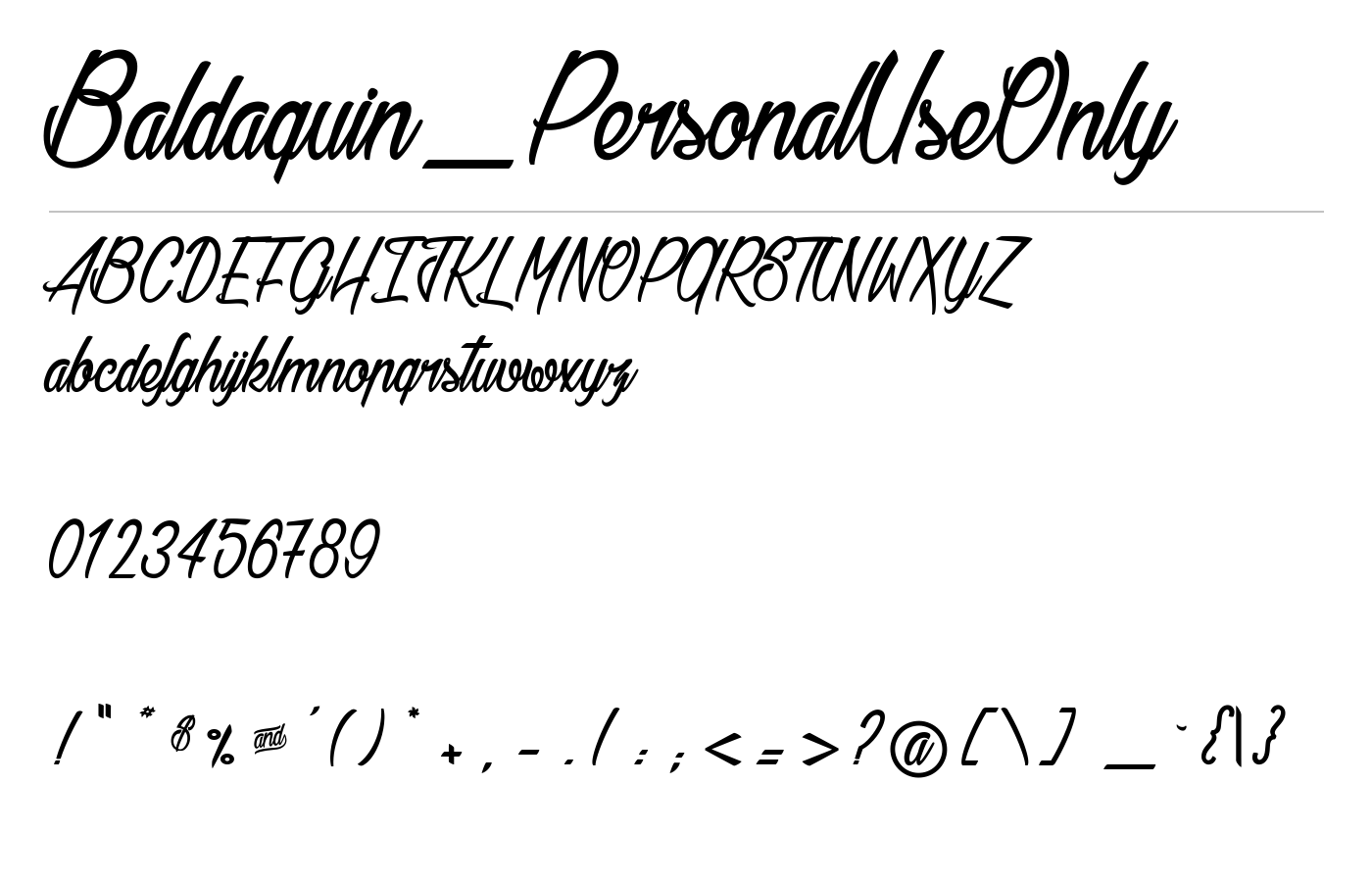
Baldaquin_PersonalUseOnly is a stylish script font with a flowing, handwritten feel, characterized by its slender, elegant strokes and moderate slant. Its refined yet casual letterforms work well for creative and personal projects, lending a sense of charm and sophistication to logos, invitations, or branding that seeks a warm, approachable personality. This font shines when used in headlines or decorative text rather than long blocks, thanks to its distinctive, artistic flair.
Baldaquin_PersonalUseOnly Font
About Baldaquin_PersonalUseOnly Font